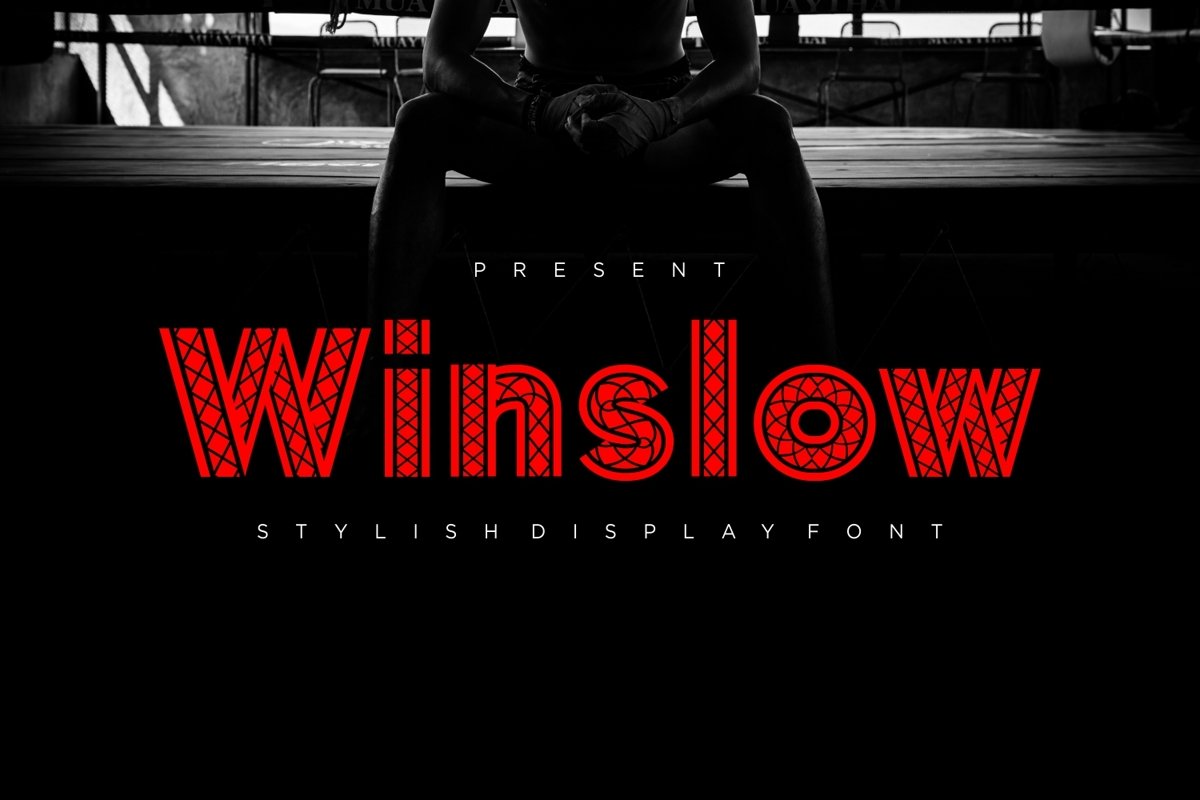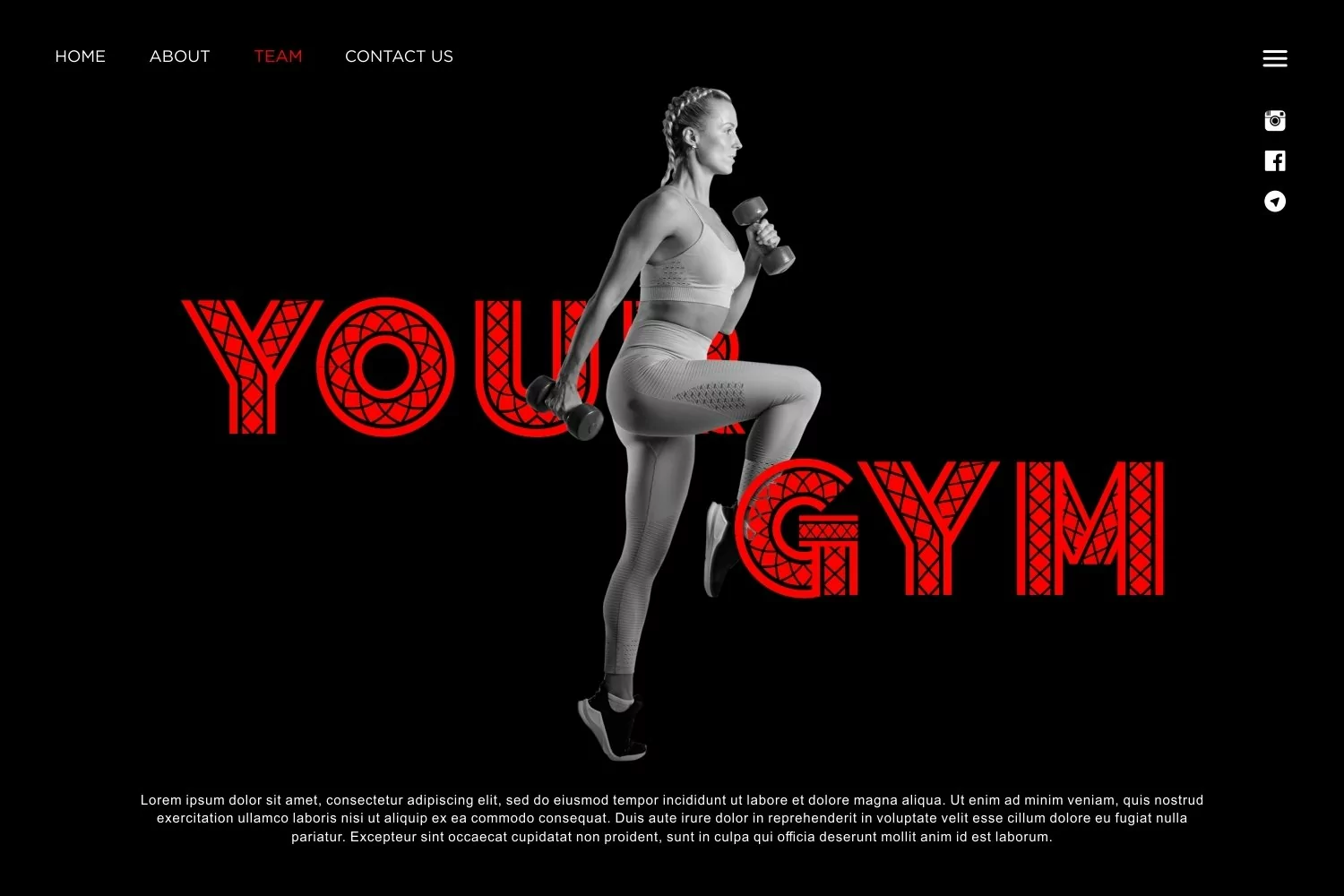
Winslow is a crafted sans serif display come with sport themes. We wanted to create the most decorative with pattern in characters. It matches applies in some designs such as the logotype, brand, packaging, quotes, poster, t-shirt, cover book, invitation and more custom design. The features uppercase, lowercase, numeral, punctuation & symbol, multilingual support, PUA encoded (fully accessible without additional design software).
Winslow